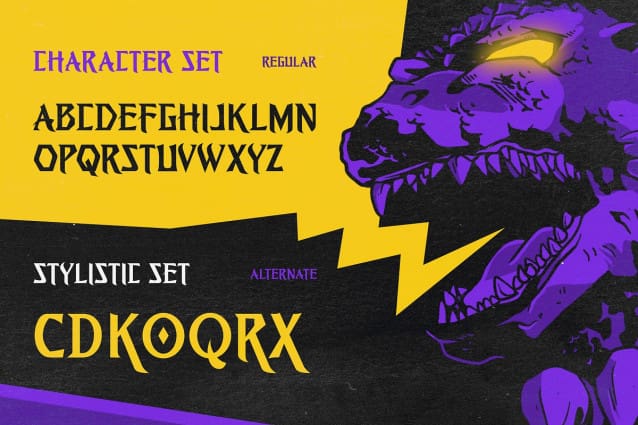
Fespyro Gothic Font
Fespyro Gothic Font – Gothic Sharp Horror Font is a hauntingly captivating typeface that brings an eerie and chilling atmosphere to your design projects. This font is specifically crafted to evoke a sense of suspense, mystery, and horror, making it an ideal choice for Monster & Kaiju vibes, horror movie posters, book covers, and any project that demands a touch of the macabre.